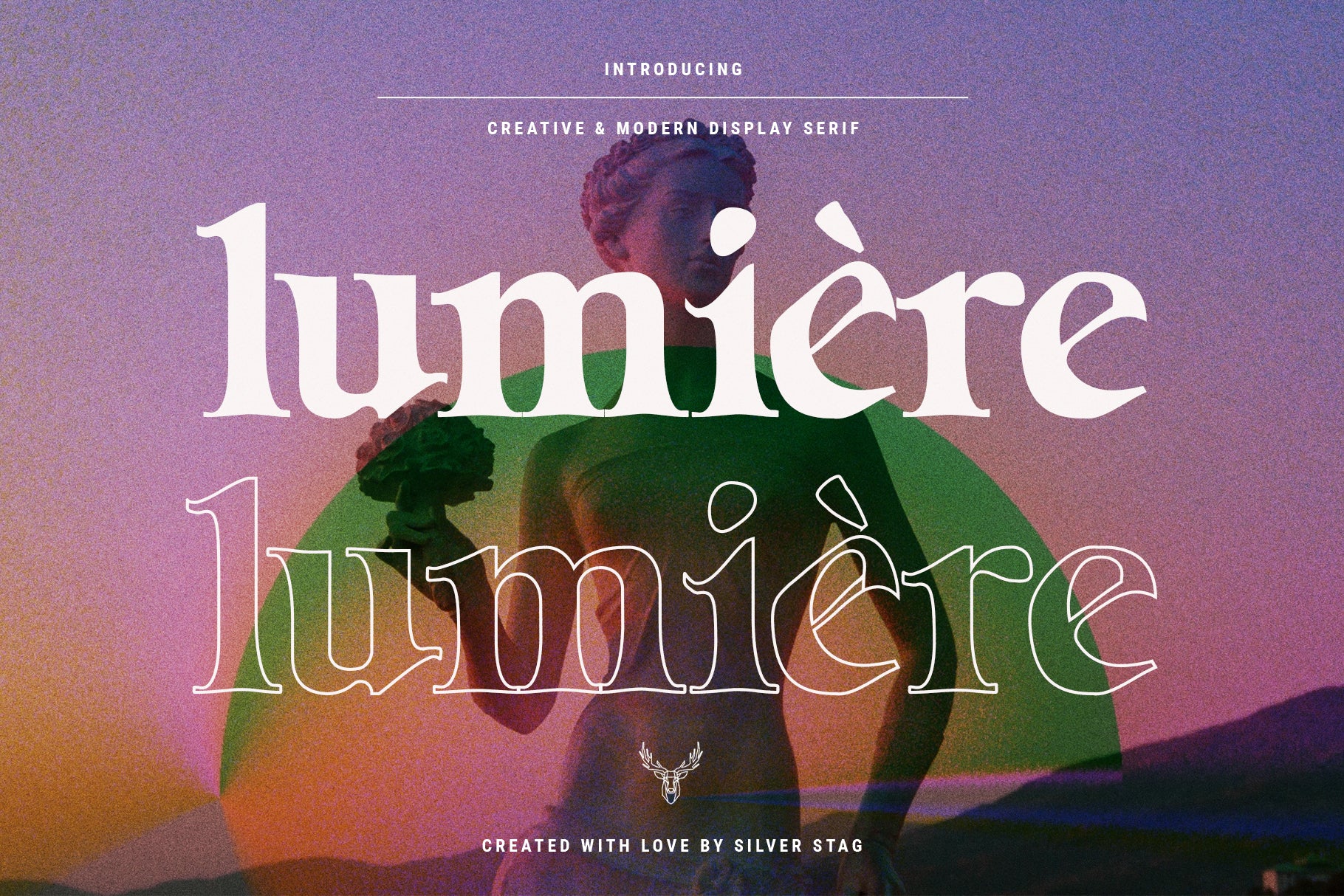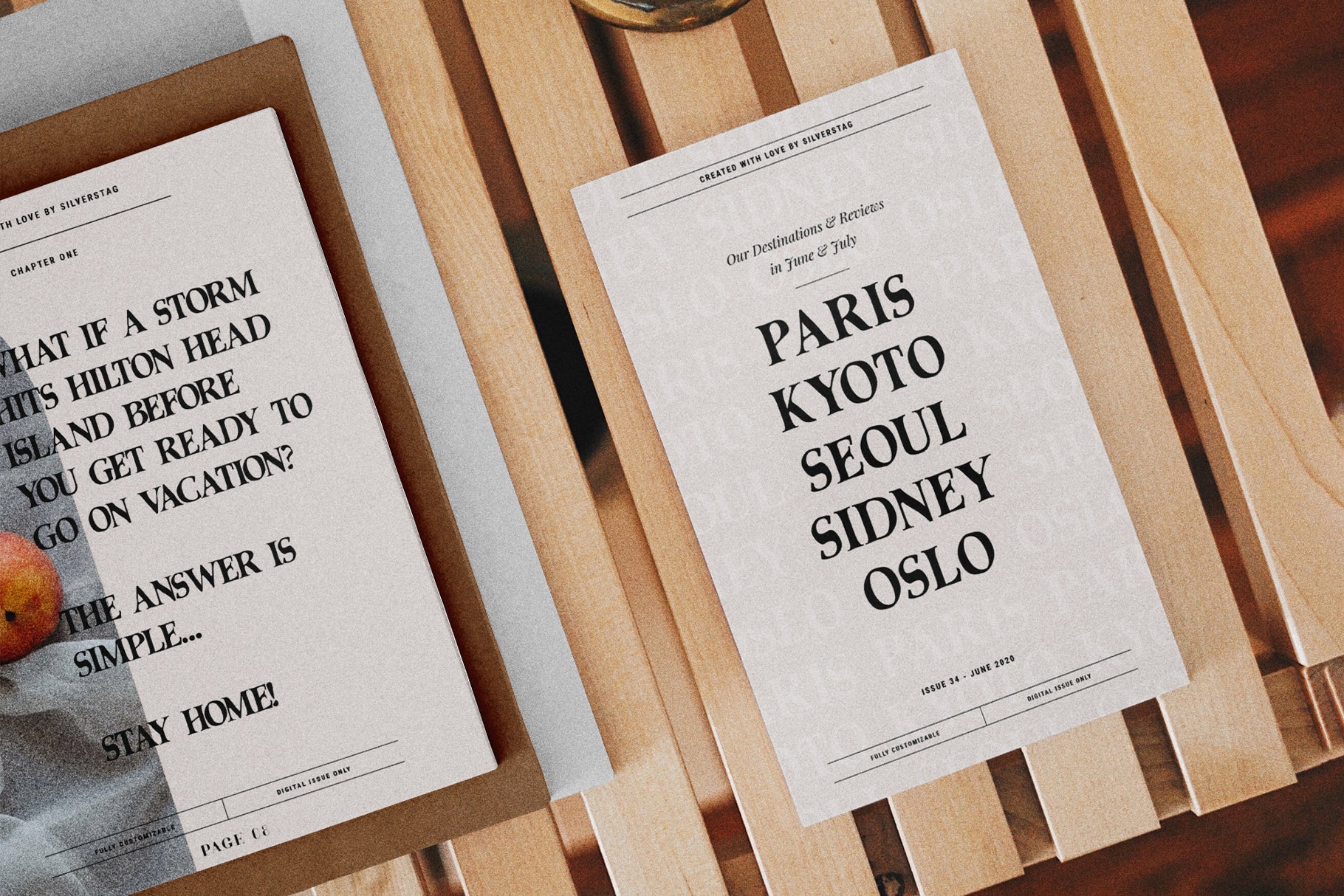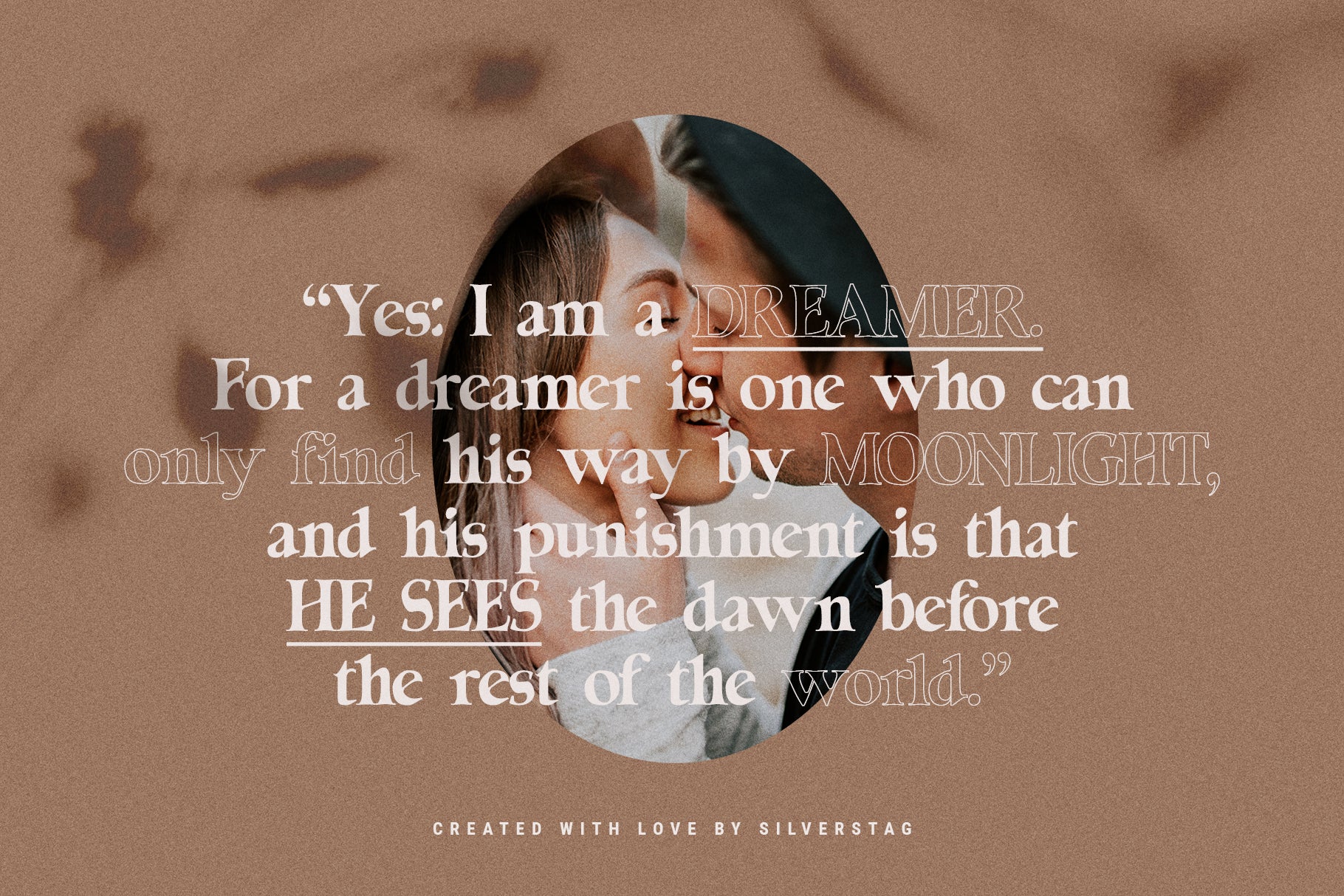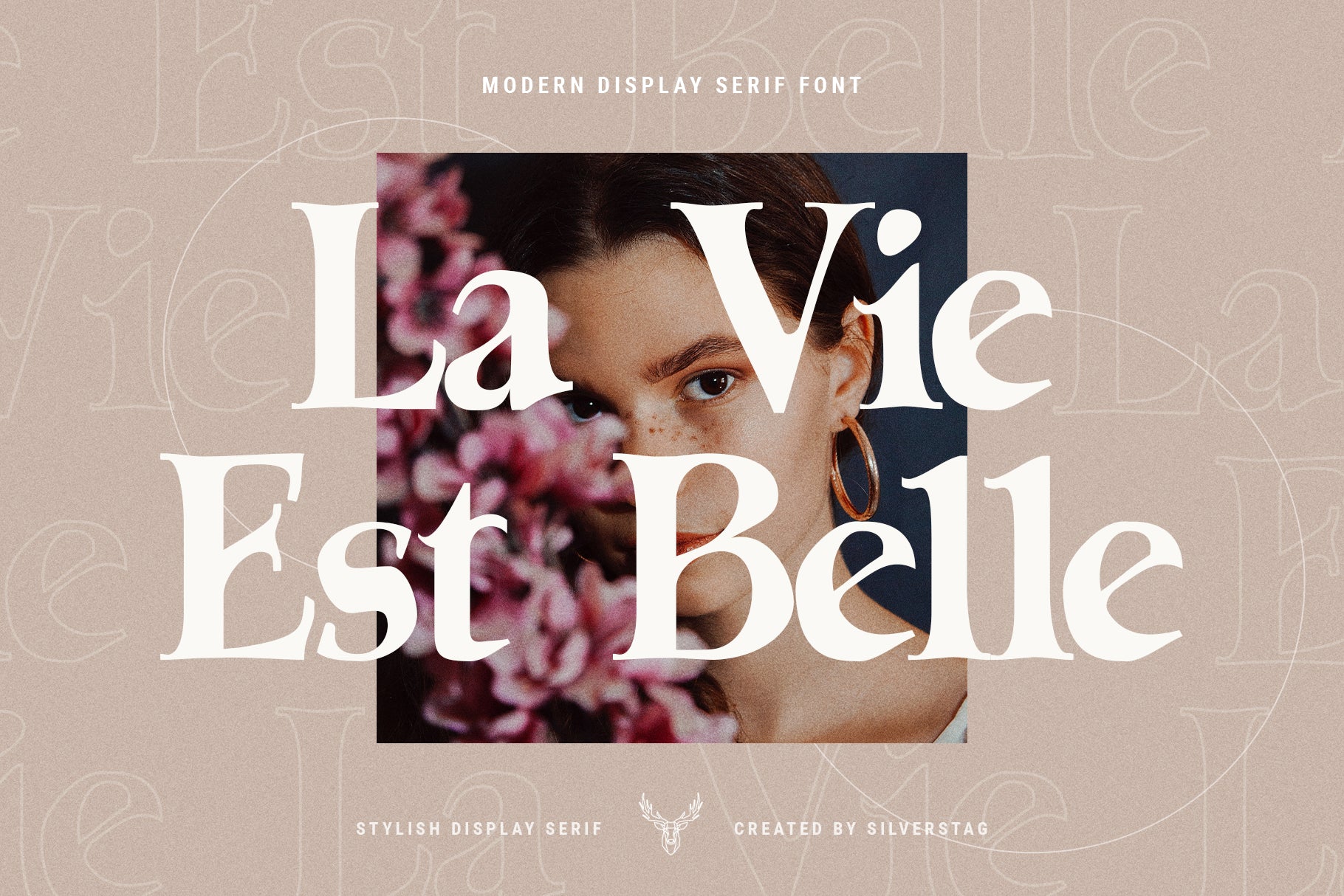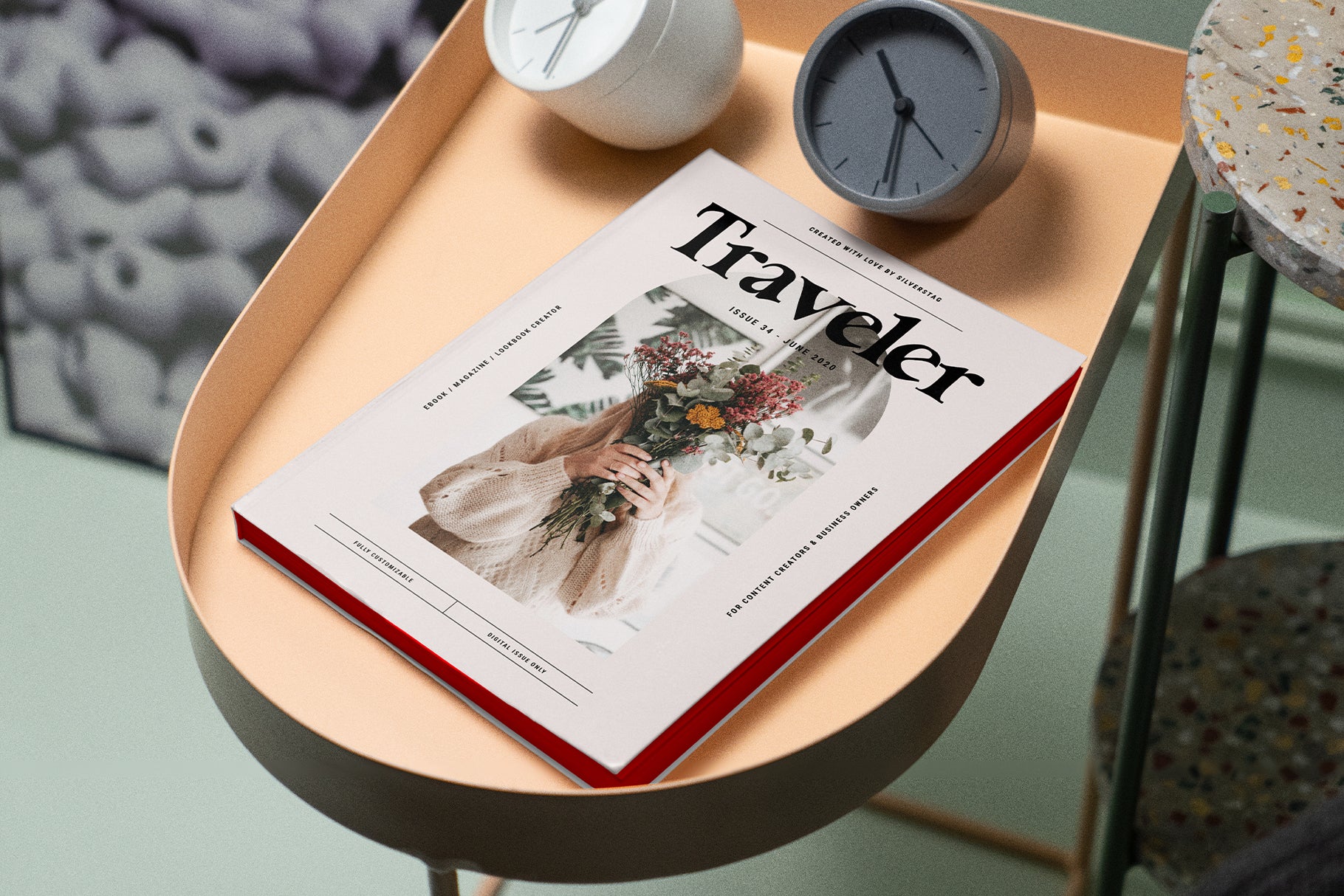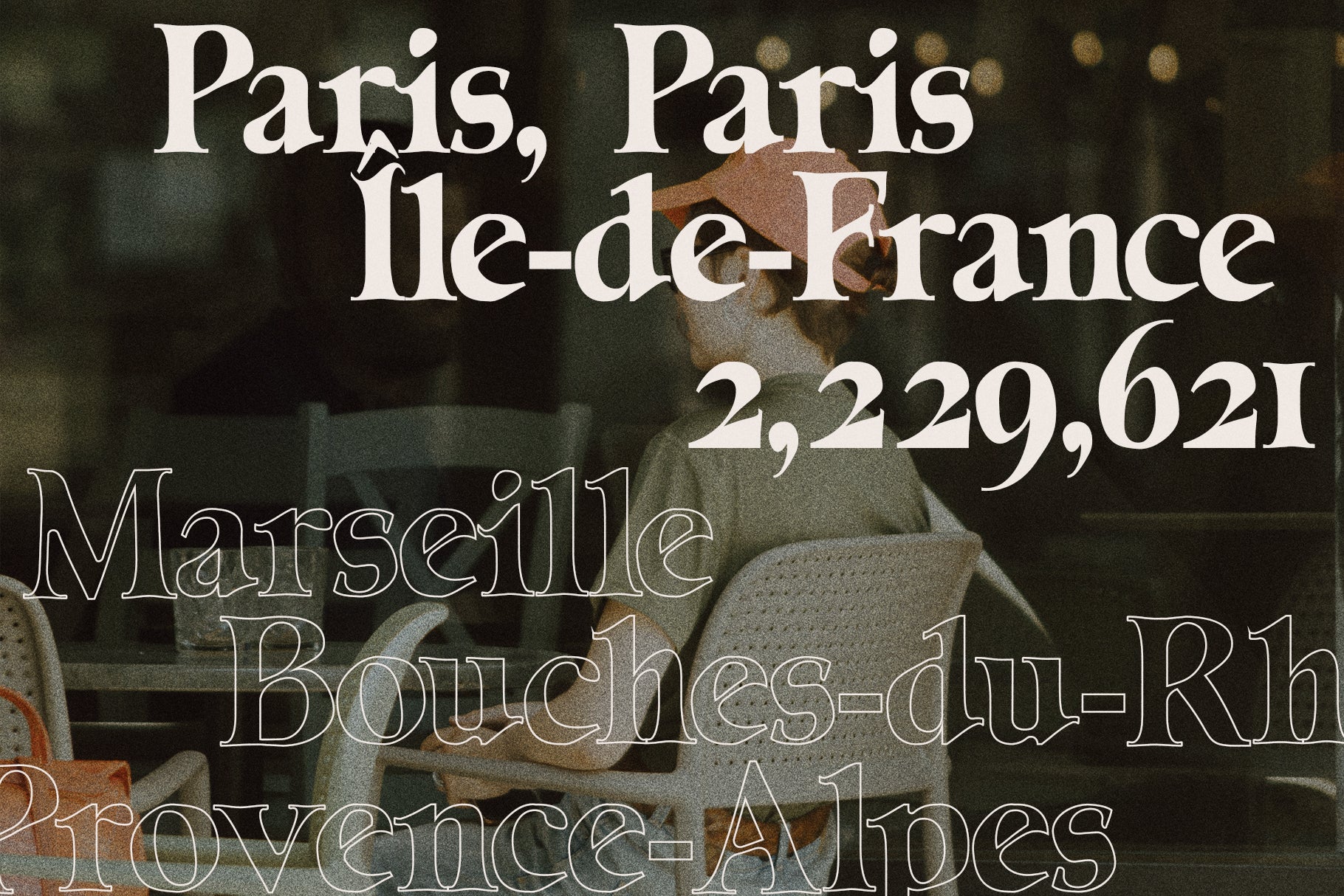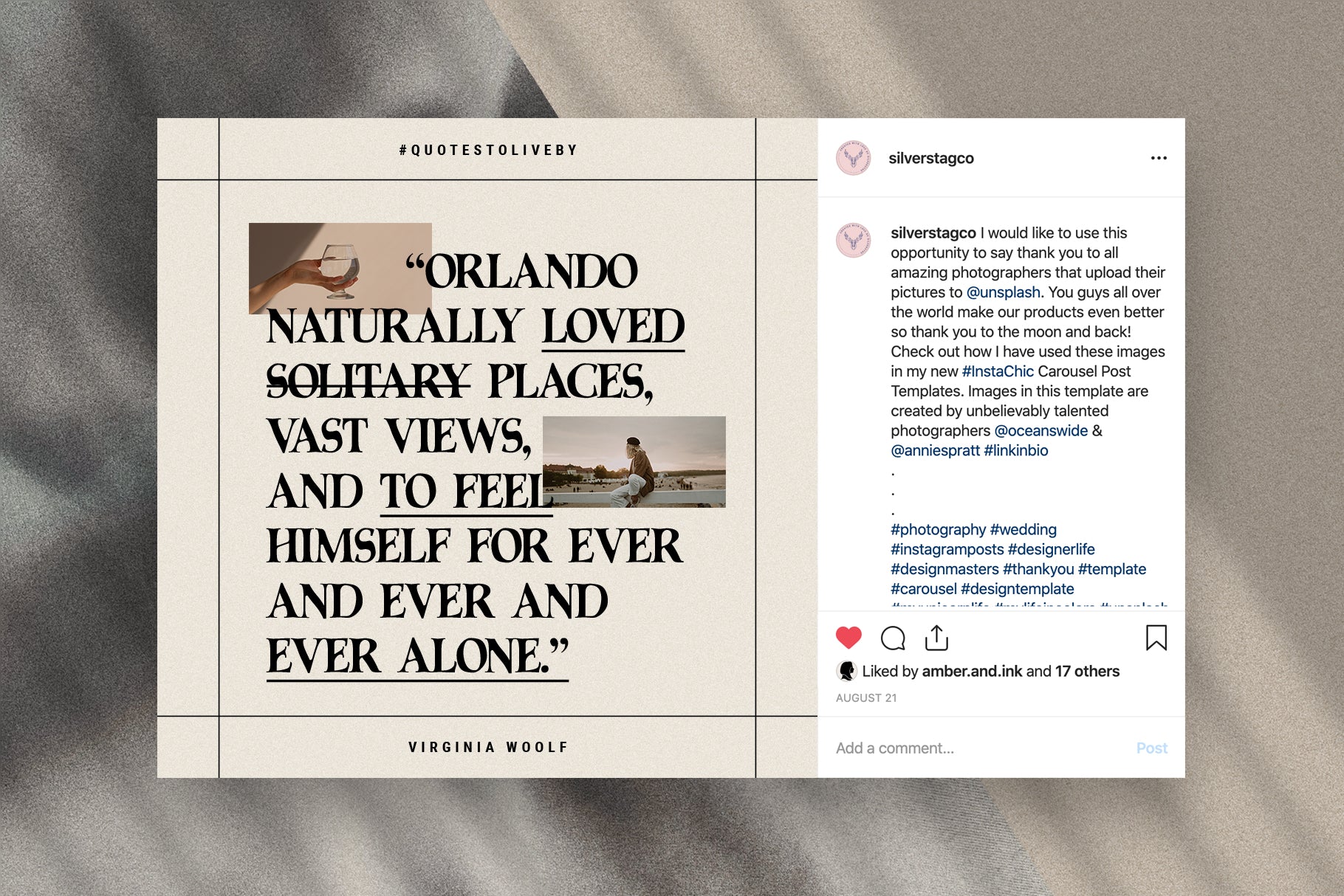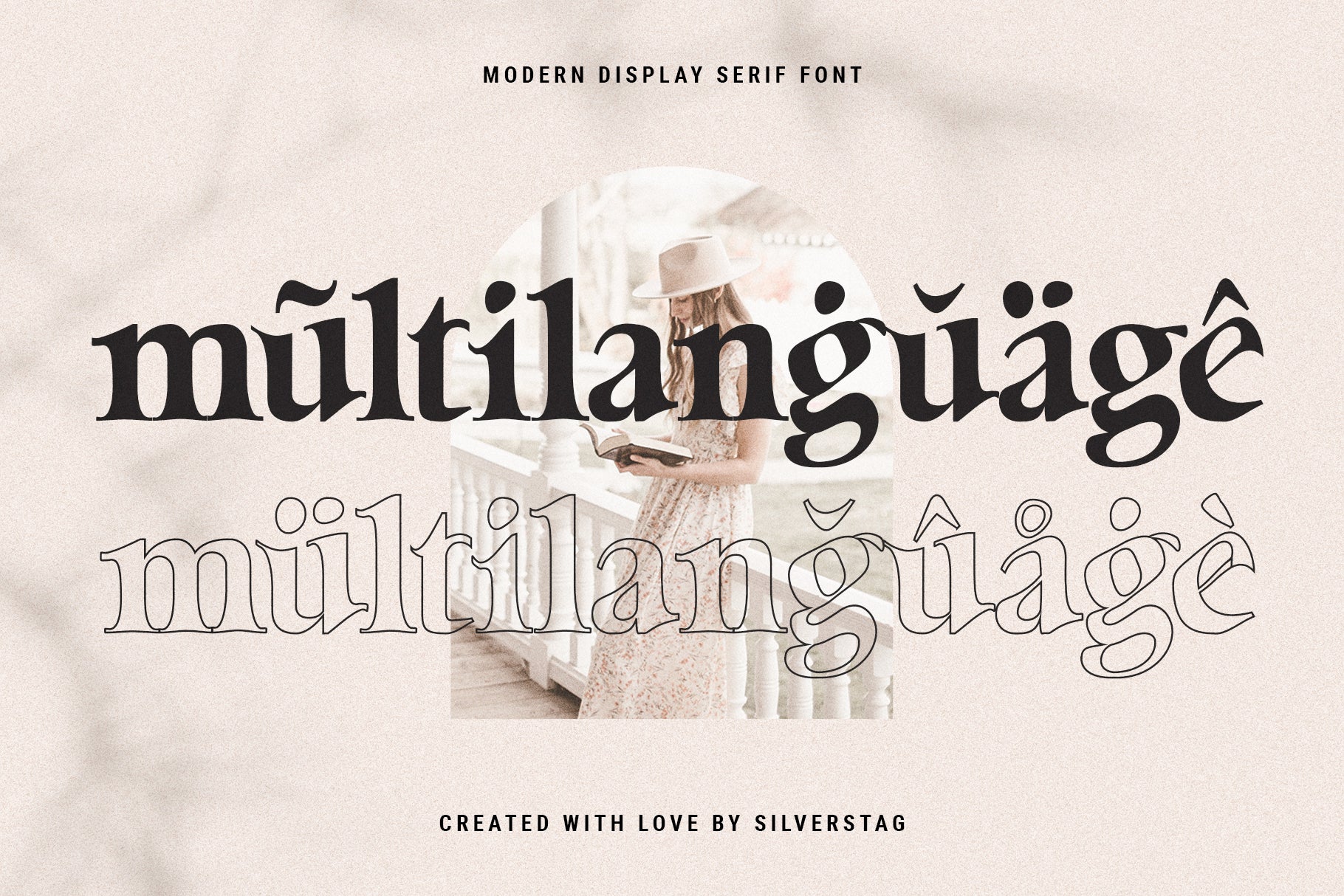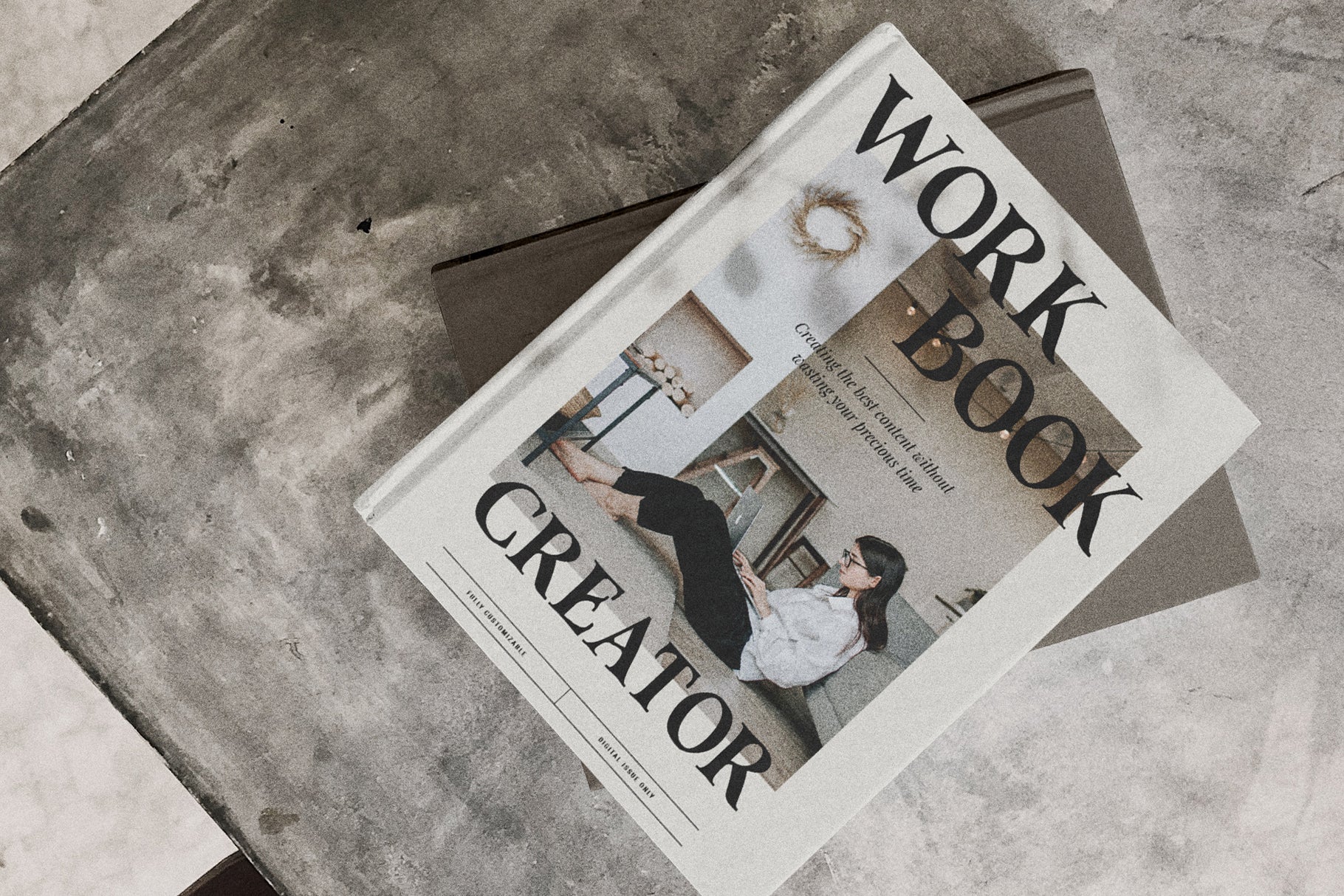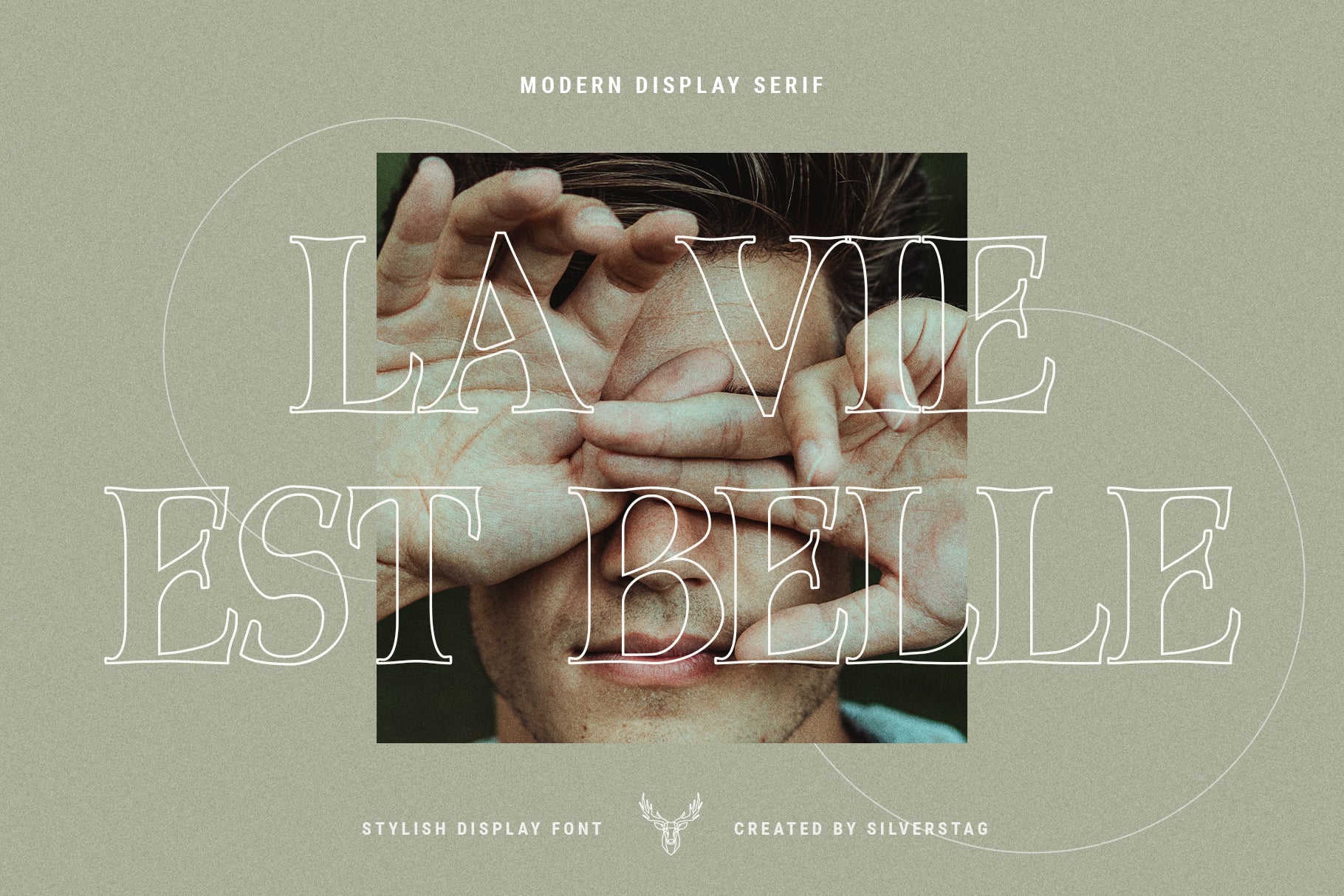
Lumière is a modern display serif font designed to bring a fresh, refined elegance to any project. With clean lines, high contrast, and subtle character, it’s the perfect typeface for creatives seeking both versatility and uniqueness. Whether you’re working on a bold logo, a sophisticated magazine layout, or an elegant website design, Lumière adds a distinctive edge to your typography.
The font includes both a standard serif style and a chic outlined version, making it easy to build contrast and rhythm in your designs. Its full character set includes uppercase and lowercase letters, numerals, punctuation, accented characters, and a Web Font Kit for digital use.
Lumière is the ideal choice for designers who want their typography to stand out—minimal, stylish, and effortlessly modern.